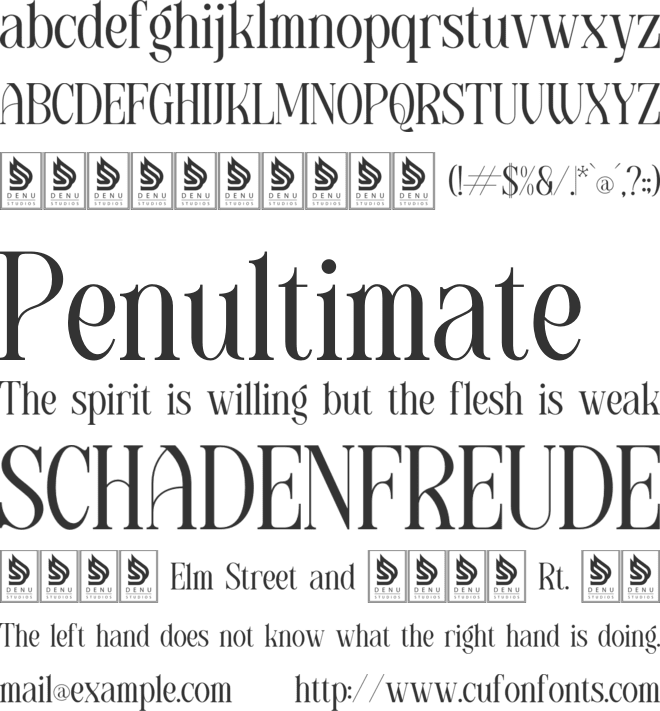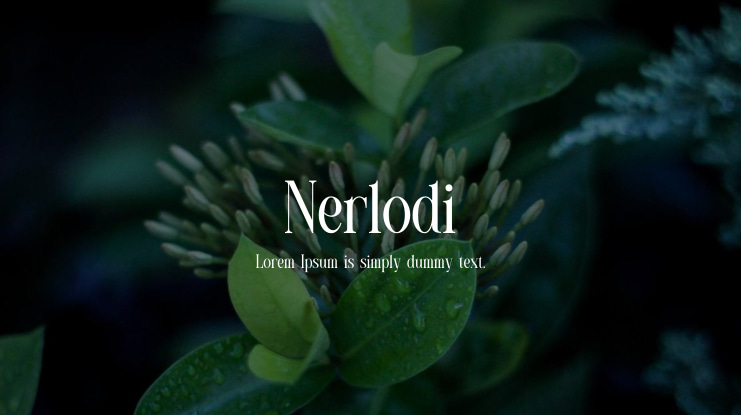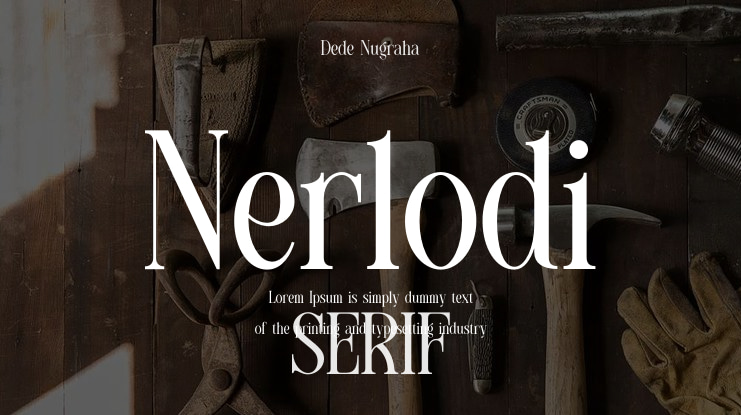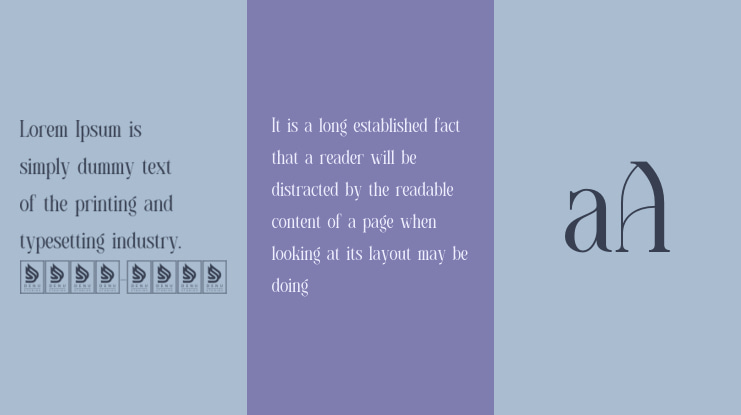
Nerlodi Font
Nerlodi | Modern Luxury Serif is ideal for various projects including logos, branding, homeware design, product packaging, mugs, quotes, posters, shopping bags, t-shirts, book covers, business cards, invitations, greeting cards, labels, photography, watermarks, special events, and any other projects that require a touch of modern luxury serif style.